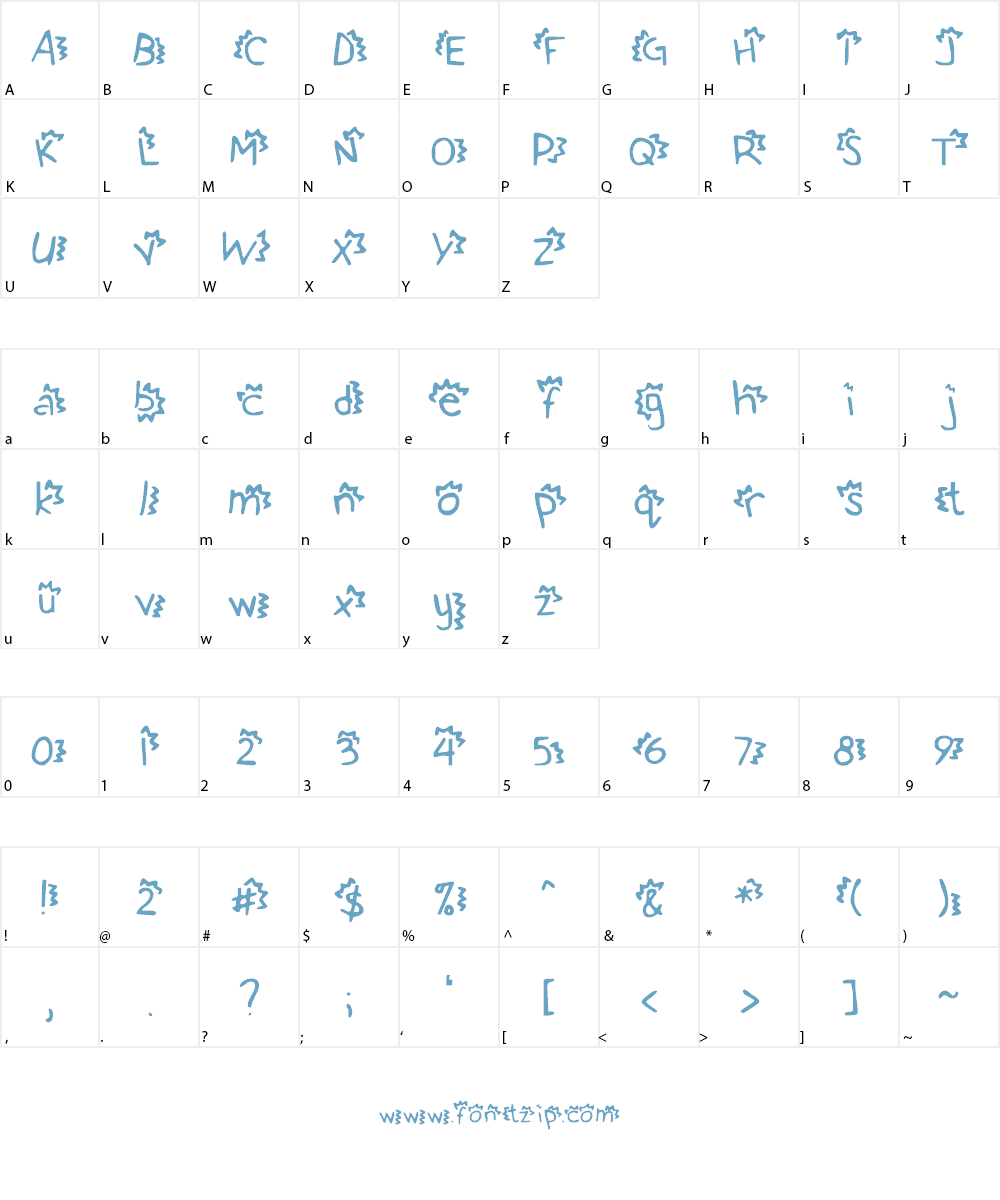
This font was made late one night when I was doodling with a sharpie. The little zigzags made me think of parties and streamers and confetti, so I picked a name that rhymed with "confetti"!